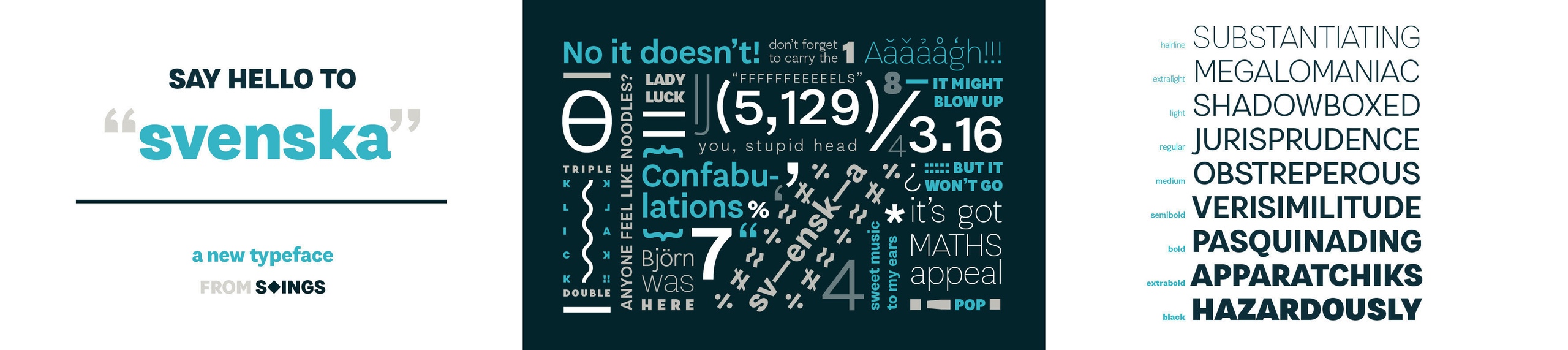
Svenska Font
Svenska Font is perfect for Swedish cultural projects, Scandinavian design brands, Nordic minimalism, Swedish furniture companies, contemporary Stockholm businesses, hygge lifestyle marketing, Swedish tourism campaigns, modern Scandinavian architecture, clean design agencies, and authentic Swedish heritage branding.
What makes Svenska Font exciting is its Swedish sophistication that embodies the clean elegance of Nordic design philosophy and Swedish cultural heritage through precisely crafted letterforms. This refined typeface combines Scandinavian minimalism with functional beauty, creating a personality that communicates clarity, sustainability, and genuine Swedish values. The font's Swedish-inspired character and Nordic appeal make it perfect for brands seeking to evoke the serene landscapes of Sweden and the sophisticated simplicity of contemporary Scandinavian lifestyle.
The Svenska Font family includes Regular, Bold, Light, Medium, Nordic, Clean, Condensed, and Minimal variants. Each weight maintains the font's Swedish character while providing comprehensive typographic flexibility for Scandinavian brand identity systems and Nordic design applications across diverse Swedish cultural platforms.
Experience Swedish elegance with this exceptional Nordic typeface that defines Scandinavian sophistication through precisely crafted letterforms. Svenska Font Free Download provides Swedish brands with access to premium Nordic typography that communicates clarity, sustainability, and authentic Swedish charm across all Scandinavian projects and cultural communications.
Whether you're developing Swedish brand identities, creating Nordic marketing materials, designing Scandinavian lifestyle campaigns, or building Swedish cultural content, Svenska Font delivers unmatched Swedish appeal and Nordic sophistication. Its clean presence makes it perfect for Swedish companies, Scandinavian design studios, Nordic lifestyle brands, and Swedish cultural organizations seeking authentic Swedish representation.
The font's minimal proportions and Swedish details create a serene reading experience that honors the pristine forests of Sweden and sophisticated Stockholm design culture. Each letterform has been carefully crafted to preserve Swedish design principles while maintaining excellent readability across modern Nordic applications.
This versatile typeface excels in Swedish environments, offering designers the clarity needed for comprehensive Nordic brand communication strategies. The extensive character set includes Swedish alternates, Nordic ligatures, and Scandinavian symbols for Swedish market positioning and Nordic brand storytelling.
Transform your Swedish projects with Svenska Font Free Download and experience how Nordic typography can enhance Swedish credibility and Scandinavian appeal. This remarkable typeface captures the essence of Swedish sophistication while providing the versatility required for modern Nordic brand communication.
Embrace the power of Swedish design that celebrates Nordic culture and authentic Scandinavian minimalist aesthetics.